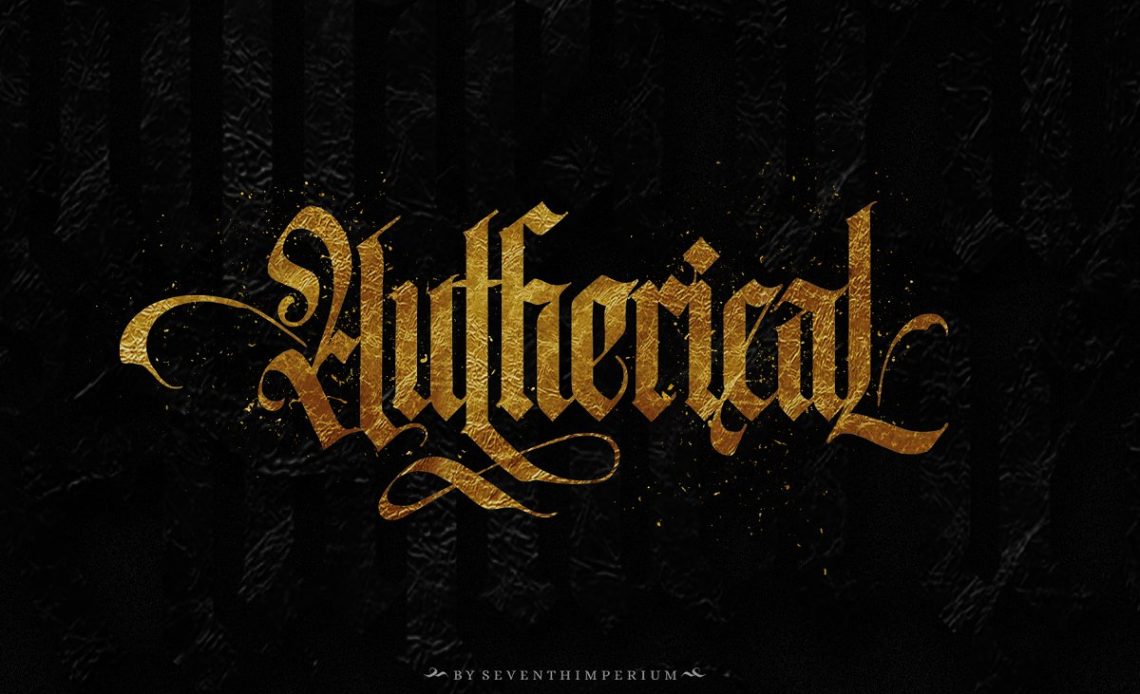
Introducing Autherical Typeface, the ultimate choice for creating a bold and stylish brand identity. This blackletter font, created by the talented designers at Seventh Imperium, is guaranteed to elevate your designs to a whole new level of sophistication and class.
Inspired by the timeless art of old fraktur calligraphy, Autherical Typeface exudes a sense of history and tradition. Its elegant and intricate design captures the essence of a bygone era, making it the perfect choice for brands looking to establish a strong and memorable initial impression.
With its two versions - regular and slant - Autherical Typeface offers versatility and flexibility in your design projects. Whether you're looking for a classic and timeless look or a more contemporary twist, this font has got you covered.
But that's not all! Autherical Typeface also comes with a wide range of extra ornaments and multilingual character support. With over 400 glyphs and numerous alternates, you'll have endless possibilities to create unique and captivating designs.
Featuring a variety of ligatures and alternative forms, this font allows you to unleash your creativity and add that extra touch of elegance to your brand. Access all the alternates easily through OpenType features or by using the PUA code, giving you complete control over your typographic masterpiece.
Whether you're designing a logo, a website, or any other branding material, Autherical Typeface will captivate your audience and leave a lasting impression. Its unique blend of history, style, and sophistication is guaranteed to set your brand apart from the competition.